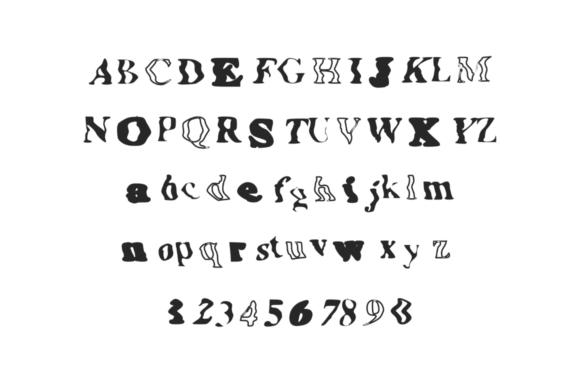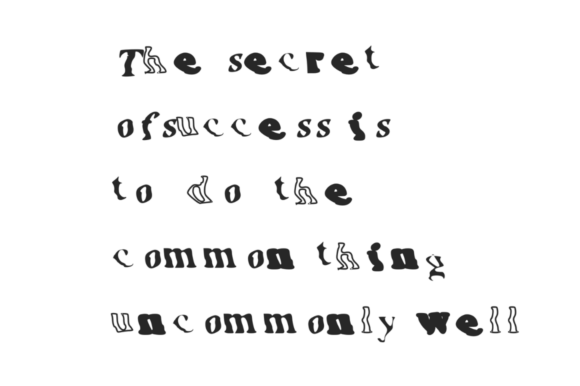
Getting Creative with the Unconventional: Glitch New Roman Random Font
Have you ever stared at a blank canvas, trying to spark that elusive creative spark? The blank page can be intimidating, but sometimes all it takes is a dash of unpredictability to get those ideas flowing. For designers, the perfect combination of art and technology can be the key to unlocking that next big project. And what’s more unpredictable than a font that’s been intentionally glitched?
Enter Glitch New Roman Random Font, a typeface that combines the classic elegance of New Roman with the raw, distorted energy of a glitch. This free download is not just a design resource – it’s a high-quality tool that can add a new level of depth and interest to any creative project. With its transparent background and five available weights, Glitch New Roman Random Font is ready to make a statement in your next design.
Key Features of Glitch New Roman Random Font
- Unique Glitch Effect: The Glitch New Roman Random Font features a distinctive glitch effect that adds a creative and futuristic touch to any design project.
- High-Quality Design: This font is designed to be a high-quality design resource, perfect for use in a variety of creative projects, including digital art, graphic design, and more.
- Transparent Background: The font includes a transparent background option, making it easy to use in designs with complex backgrounds or layered elements.
- Size and Resolution: The font is available in a range of sizes, from 12px to 72px, and is designed to be scalable to any resolution, making it perfect for use in both low- and high-resolution designs.
- Randomization Options: The font includes randomization options, allowing designers to create unique and varied text effects with ease.
Honest Review: Glitch New Roman Random Font
I recently came across the Glitch New Roman Random Font while searching for a unique design resource for my latest creative project. I was excited to give it a try and see how it would add to my visual identity.
What works well: ✨ I was impressed with the high quality of the font, and the glitch effect added a really interesting element to my design. The transparent background made it easy to layer over other elements, and the free download was a bonus. The font was also surprisingly versatile, and I found myself using it in a variety of contexts.
What doesn’t work well: ⚠️ While the font itself is great, I did find that it can be a bit tricky to use in certain situations. For example, the glitch effect can sometimes be distracting if used in large quantities, and the font may not be suitable for text-heavy designs. Additionally, the font’s randomness can make it difficult to predict how it will behave in different contexts.
Overall, I’m really impressed with the Glitch New Roman Random Font, and I would definitely recommend it to anyone looking for a unique design element. While it may have some limitations, the benefits far outweigh the drawbacks.
- Unique glitch effect adds interest to designs
- High quality and versatile font
- Transparent background makes it easy to layer
The Glitch New Roman Random Font is perfect for designers looking to add a unique, high-quality touch to their creative projects. It’s great for designing logos, posters, and other visual materials that require a creative and eye-catching look.
To get the most out of the Glitch New Roman Random Font, experiment with different font sizes, colors, and combinations to find the perfect look for your design project. This font is a versatile design resource that can be used in a variety of creative contexts.